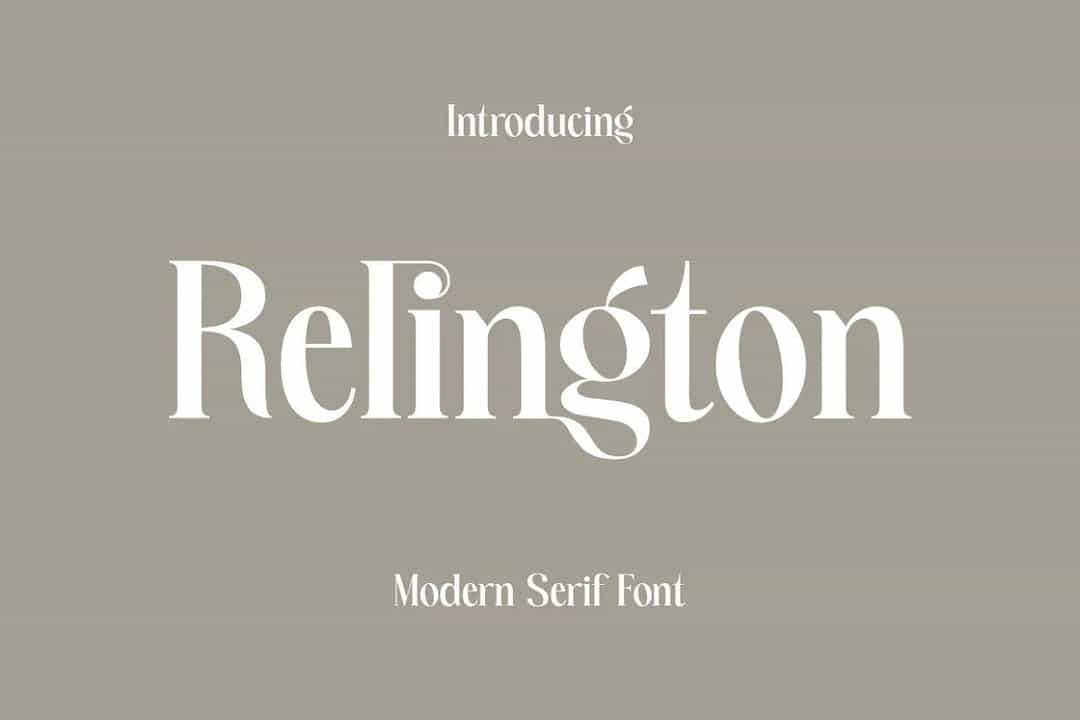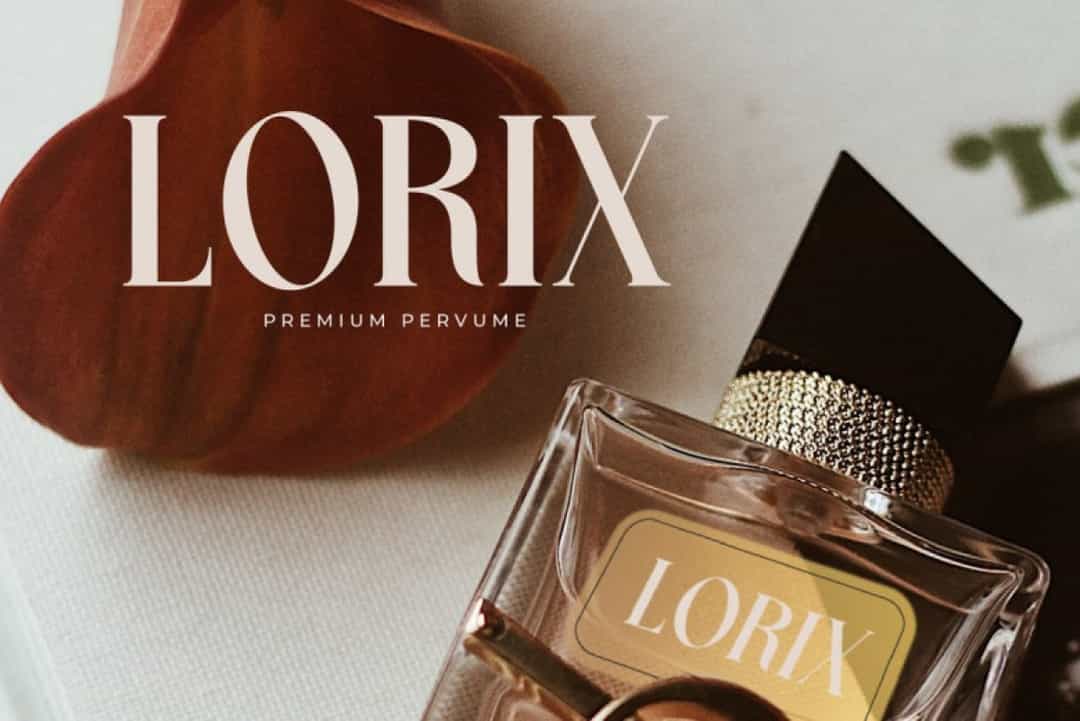
Relington is an elegant and versatile serif typeface that exudes classic charm, featuring bold curves and stunning features to give modern designs an opulent yet classy feel. Perfect for web design, display or social media use; Relington is sure to add timeless style!